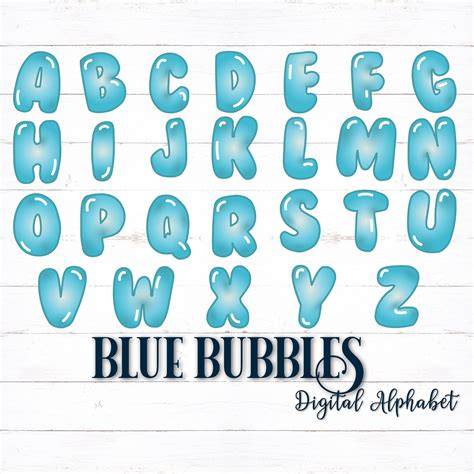
Blue Bubble Letters: Fonts, Designs, and Templates
Readers, have you ever wanted to add a touch of whimsy and charm to your designs? Perhaps you're looking for a fun and eye-catching way to present your brand or a unique way to personalize your projects? Blue bubble letters are a fantastic option that can bring a playful and cheerful vibe to any creation. But with so many different fonts, designs, and templates available, it can be challenging to know where to start. Don't worry, I've dedicated countless hours to delving into the wonderful world of blue bubble letters, analyzing trends, and discovering hidden gems. Let's dive into this exciting journey together!
The Allure of Blue Bubble Letters
Blue bubble letters, with their soft, rounded edges and vibrant hues, evoke a sense of fun and nostalgia. They often remind us of childhood memories of blowing bubbles and watching them float through the air. This playful aesthetic makes them perfect for projects targeting children or those seeking a lighthearted touch. But the appeal extends beyond mere aesthetics. Blue bubble letters can also be incredibly versatile, adaptable to various design styles and mediums.
The History of Blue Bubble Letters
The origins of blue bubble letters are somewhat elusive, but their popularity surged in the 1990s and early 2000s, thanks partly to the rise of digital design tools and the growing trend of personalized graphics. The combination of vibrant colors, playful shapes, and easy customization made them a hit among designers and DIY enthusiasts alike.
The Psychology of Blue Bubble Letters
Blue, often associated with calmness and tranquility, is a popular color choice for brands seeking to convey trust and reliability. When combined with the softness of bubble letters, it creates a comforting and approachable visual. This combination can work effectively to appeal to a broad audience, especially those seeking a cheerful and reassuring aesthetic.
Exploring Blue Bubble Letter Fonts
Fonts play a crucial role in defining the character of blue bubble letters. The right font can enhance the playful aesthetic or add a touch of sophistication. Let's explore some popular options and their unique characteristics.
Bold and Playful Fonts
For projects demanding a bold and playful feel, consider fonts like "Comic Sans MS" or "Chalkboard." These fonts capture a childlike charm and add a touch of whimsy to designs. "Comic Sans MS" is a classic choice for its rounded edges and playful curves, while "Chalkboard" offers a more rustic and casual vibe.
Elegant and Sophisticated Fonts
If you're seeking a more elegant and sophisticated approach, fonts like "Bubblegum Sans" or "Sofia Pro" offer a contemporary twist on the classic bubble letter style. These fonts retain the rounded edges but feature smoother lines and a more refined overall appearance.
Customizable Fonts
For ultimate customization, consider using online font generators or design software. These tools allow you to create custom fonts with various sizes, colors, and unique embellishments. You can even experiment with different textures and gradients to achieve a truly unique look.
Blue Bubble Letter Designs: A World of Possibilities
Beyond choosing the right font, the design of blue bubble letters can significantly impact the overall aesthetic. Let's explore some popular design techniques and their applications.
3D Bubble Letters
3D bubble letters, with their realistic rounded edges and depth, add a dimension that can make your designs pop. They're perfect for creating eye-catching headlines, logos, or even personalized gifts.
Gradient Bubble Letters
Gradient bubble letters, incorporating multiple shades of blue or a spectrum of vibrant colors, add a visually appealing and modern touch. They can create a sense of depth and movement, making your designs more dynamic and engaging.
Shadow Effects
Adding shadows to your blue bubble letters can create a sense of depth and realism. Shadows can also help your text stand out against a busy background, enhancing readability and visual impact.
Texture and Embellishments
Experimenting with textures and embellishments can elevate your blue bubble letter designs to a new level. You can add glitter, sparkles, or even create a textured surface to mimic the look of real bubbles.
Blue Bubble Letter Templates: Easy and Effective
For those seeking a quick and convenient way to incorporate blue bubble letters into their designs, templates offer a fantastic solution. Online resources and design software offer a wide array of pre-made templates that can be easily customized.
Social Media Templates
Social media templates featuring blue bubble letters can be a great way to create eye-catching posts and stories. These templates often include pre-designed elements, such as backgrounds, icons, and layouts, making it easy to add your text and personalize them.
Invitation Templates
Blue bubble letters are perfect for creating playful and memorable invitations. Templates for birthdays, parties, or special events often incorporate cute illustrations and decorative elements, complementing the playful aesthetic of blue bubble letters.